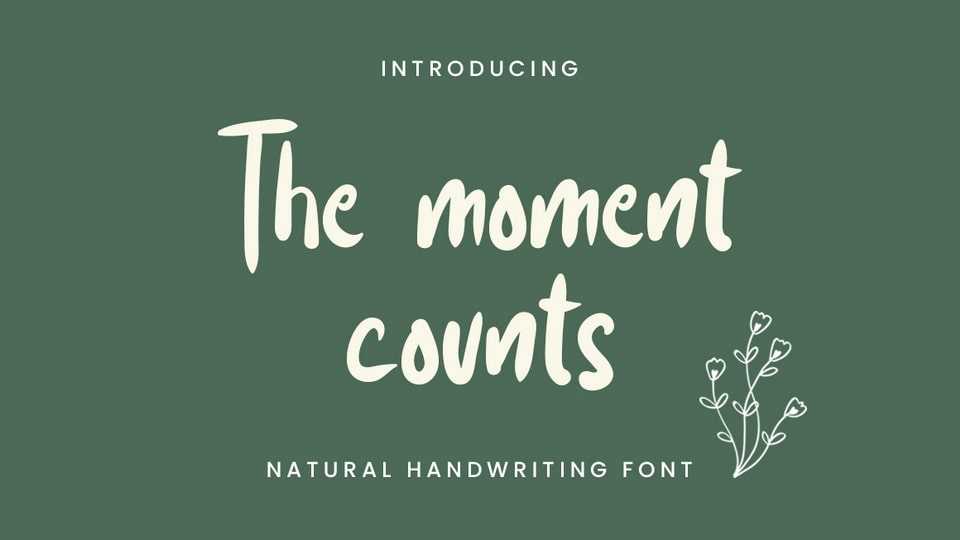
Download The Moment Counts font, a beautifully crafted handwritten typeface that captures the essence of natural, effortless writing with its smooth, flowing strokes and organic character.